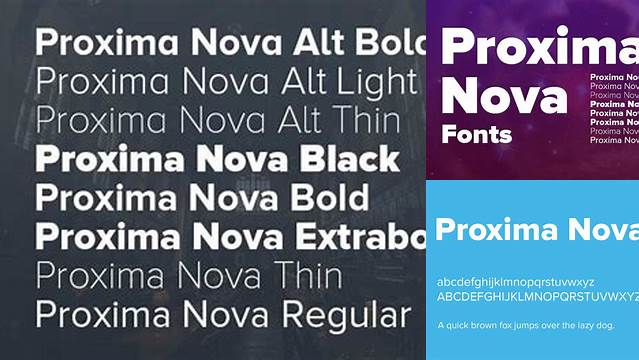
Proxima Nova Font: Free Options, Uses & Similar Fonts
Hey guys! Are you looking for a font that's both modern and versatile? Well, look no further! Today, we're diving deep into the world of Proxima Nova, a font family that has become a favorite among designers and creatives worldwide. We'll explore its history, characteristics, where to find it, and how to use it effectively in your projects. So, buckle up and let's get started!
What is Proxima Nova?
If you're in the design world, you've definitely stumbled upon Proxima Nova. This font family, created by Mark Simonson, is a geometric sans-serif typeface that blends modern proportions with a clean, contemporary aesthetic. It's incredibly versatile, making it a go-to choice for everything from websites and apps to logos and print materials. Launched in 2005, Proxima Nova is actually a revamp of Simonson's earlier font, Proxima Sans, which came out in 1994. The updated version boasts a wider range of weights and styles, making it even more adaptable to different design needs. Think of Proxima Nova as the cool, sophisticated cousin of Helvetica and Futura. It shares their clean lines and geometric structure but has a warmth and personality that sets it apart. This makes it perfect for projects that need to feel modern and approachable at the same time. One of the key reasons Proxima Nova is so popular is its readability. The letterforms are clear and well-defined, making it easy on the eyes even in large blocks of text. This is crucial for websites and apps, where user experience is paramount. Plus, the variety of weights – from thin and light to bold and black – allows designers to create visual hierarchy and emphasis without sacrificing consistency. Proxima Nova also shines in branding. Its neutrality and versatility make it a great choice for logos and marketing materials. It can convey a sense of professionalism and trustworthiness, while still feeling modern and stylish. In fact, you've probably seen Proxima Nova used by major brands across various industries. Its subtle elegance makes it a perfect fit for businesses that want to project a clean and contemporary image. So, whether you're designing a website, creating a logo, or crafting marketing materials, Proxima Nova is a font family that deserves a spot in your design toolkit. Its timeless appeal and versatility ensure that it will remain a staple in the design world for years to come.
Key Characteristics of Proxima Nova
Let's break down what makes Proxima Nova so special. Its geometric design is the foundation of its appeal. Think perfect circles and straight lines, giving it that clean, modern edge. But it's not just about geometry; Proxima Nova has a subtle warmth that prevents it from feeling sterile or cold. This is achieved through carefully crafted curves and proportions that make it feel inviting and approachable. One of the standout features of Proxima Nova is its extensive family of weights and styles. This is where its versatility truly shines. You've got everything from thin and light weights for delicate headlines to bold and black weights for impactful statements. There are also various widths available, including condensed and extra-condensed versions, which are perfect for tight spaces or when you need to maximize space efficiency. This wide range allows designers to create a cohesive visual hierarchy within their designs, using different weights and styles to differentiate elements and guide the viewer's eye. The legibility of Proxima Nova is another crucial factor in its popularity. The letterforms are designed with clarity in mind, making it easy to read in both print and digital formats. The spacing between letters is carefully considered, ensuring that the text flows smoothly and doesn't feel cramped. This is particularly important for body text, where readability is paramount. Proxima Nova's neutral yet friendly appearance makes it incredibly adaptable to different design styles. It can be used in a wide range of contexts, from corporate websites to creative marketing campaigns. It pairs well with other fonts, both serif and sans-serif, making it a versatile choice for any project. Its clean lines and balanced proportions give it a timeless quality, ensuring that it won't look dated anytime soon. In essence, Proxima Nova is more than just a font; it's a design tool that empowers you to communicate effectively and create visually appealing designs. Its geometric foundation, extensive family of weights, excellent legibility, and neutral personality make it a go-to choice for designers across various industries. Understanding these key characteristics will help you appreciate its value and use it effectively in your own projects.
How to Use Proxima Nova Effectively in Your Designs
Alright, guys, you've got Proxima Nova, now what? Let's talk about how to use this versatile font family effectively in your designs. Proxima Nova is a powerhouse, but like any tool, it needs to be used correctly to achieve the best results. First and foremost, consider your project's overall tone and message. Proxima Nova is known for its clean, modern, and approachable aesthetic. It's a great choice for projects that need to feel contemporary and professional, but it might not be the best fit for designs that require a more traditional or whimsical feel. Think about the brand identity you're trying to convey. Proxima Nova is excellent for brands that want to project an image of trustworthiness, innovation, and clarity. When it comes to typography hierarchy, Proxima Nova shines. Its wide range of weights and styles allows you to create a clear visual hierarchy in your designs. Use heavier weights for headlines and subheadings to grab attention, and lighter weights for body text to ensure readability. Experiment with different sizes and spacing to create a balanced and visually appealing layout. Don't be afraid to mix and match Proxima Nova's different styles to add visual interest and emphasis. For example, you could use Proxima Nova Bold for headlines and Proxima Nova Light for body text, or use italic styles to highlight key words or phrases. Pairing Proxima Nova with other fonts can be a fun and creative way to add personality to your designs. Because of its neutral nature, Proxima Nova plays well with both serif and sans-serif fonts. For a classic and elegant look, try pairing it with a serif font like Georgia or Times New Roman. For a more modern and minimalist feel, consider pairing it with another sans-serif font like Open Sans or Lato. The key is to choose a pairing that complements Proxima Nova's clean lines and doesn't clash with its overall aesthetic. Readability should always be a top priority when using any font, including Proxima Nova. Make sure your text is easy to read by choosing an appropriate font size and line height. Avoid using overly decorative or condensed styles for body text, as they can strain the eyes and make reading difficult. Pay attention to the contrast between your text and background colors. High contrast is essential for readability, especially in digital formats. White space is your friend! Don't overcrowd your designs with too much text or graphics. Give your text room to breathe by using sufficient margins and spacing. This will make your designs more visually appealing and easier to read. In short, using Proxima Nova effectively is all about understanding its strengths and using it in a way that complements your overall design goals. Consider your project's tone, create a clear visual hierarchy, experiment with font pairings, and always prioritize readability. With a little practice, you'll be able to harness the power of Proxima Nova to create stunning and effective designs.
Proxima Nova Alternatives: Similar Fonts to Consider
Okay, so maybe Proxima Nova isn't quite the right fit for your project, or perhaps you're looking for a similar font that's more budget-friendly. No worries, guys! There are plenty of fantastic alternatives to Proxima Nova that capture its essence while offering their own unique flair. Let's explore some of the best options out there. First up, we have Montserrat. This is a popular open-source font that's often cited as a close alternative to Proxima Nova. Montserrat shares Proxima Nova's geometric sans-serif structure and clean lines, making it a versatile choice for a wide range of projects. It's available in a variety of weights and styles, giving you plenty of flexibility in your designs. Plus, being open-source, it's completely free to use, even for commercial projects! Another excellent alternative is Lato. This sans-serif typeface has a slightly warmer and friendlier feel than Proxima Nova, thanks to its semi-rounded details. Lato is highly legible in both print and digital formats, making it a great choice for body text. It also comes in a wide range of weights, allowing you to create a clear visual hierarchy in your designs. Like Montserrat, Lato is also available under an open-source license, making it a fantastic free alternative. Open Sans is another widely used sans-serif font that shares similarities with Proxima Nova. It's known for its neutral yet approachable appearance and excellent readability. Open Sans is a great option for websites and apps, as it's designed to be clear and easy on the eyes, even on screens. It's also available in a variety of weights and styles and is released under an open-source license. If you're looking for a font with a slightly more condensed appearance, Roboto might be a good choice. This sans-serif typeface has a modern and clean aesthetic, with slightly narrower letterforms than Proxima Nova. Roboto is a popular choice for UI design and mobile apps, as it maximizes space efficiency while maintaining excellent readability. It's also available under an open-source license. SF Pro is the system font for Apple devices, and it's a beautifully designed sans-serif typeface that's worth considering. While you can't use SF Pro in commercial projects unless they're specifically for Apple platforms, it's a great option for personal projects or for mocking up designs for iOS or macOS apps. SF Pro has a clean and modern appearance, with excellent legibility and a wide range of weights and styles. When choosing an alternative to Proxima Nova, it's important to consider your project's specific needs and goals. Think about the overall tone and message you want to convey, and choose a font that aligns with your brand identity. Pay attention to factors like readability, versatility, and availability of different weights and styles. And don't be afraid to experiment with different fonts to find the perfect match for your project. In conclusion, while Proxima Nova is a fantastic font family, there are many other excellent options out there that can help you achieve a similar look and feel. Montserrat, Lato, Open Sans, Roboto, and SF Pro are just a few of the many alternatives you might consider. By exploring these options, you can find the perfect font to elevate your designs and bring your creative vision to life.
Conclusion: Embrace the Power of Typography
Guys, we've covered a lot today! From understanding the history and characteristics of Proxima Nova to exploring where to find it and how to use it effectively, we've delved deep into the world of typography. And remember, typography is more than just choosing a font; it's about communication, visual hierarchy, and creating an overall aesthetic that resonates with your audience. Proxima Nova, with its versatility and modern appeal, is a fantastic tool in any designer's arsenal. But it's just one piece of the puzzle. Understanding the principles of typography, like choosing the right font pairings, creating clear hierarchies, and ensuring readability, is crucial for creating effective and visually appealing designs. Don't be afraid to experiment with different fonts and styles. Typography is a creative process, and there's no one-size-fits-all solution. Try out different combinations, play with weights and sizes, and see what works best for your project. The more you experiment, the better you'll become at understanding how typography can impact your designs. Pay attention to the details. Small things, like line height, letter spacing, and kerning, can make a big difference in the overall look and feel of your typography. Take the time to fine-tune these details to create a polished and professional result. Seek inspiration from other designers. Look at websites, magazines, and other designs that you admire, and analyze their typography choices. What fonts are they using? How are they creating hierarchy? What visual impact does the typography have? Learning from others can help you develop your own typographic eye and expand your creative toolkit. Never underestimate the power of white space. Giving your text room to breathe is essential for readability and visual appeal. Don't overcrowd your designs with too much text or graphics. Use white space strategically to create a balanced and harmonious layout. Ultimately, typography is about communication. Your font choices should support your message and make it easier for your audience to understand and engage with your content. Choose fonts that are appropriate for your brand, your audience, and your project's overall goals. So, go out there and embrace the power of typography! Experiment, learn, and have fun with it. With a little knowledge and creativity, you can use typography to elevate your designs and create a lasting impact on your audience. Whether you choose Proxima Nova or one of its many excellent alternatives, the key is to use typography intentionally and effectively. Your designs will thank you for it!